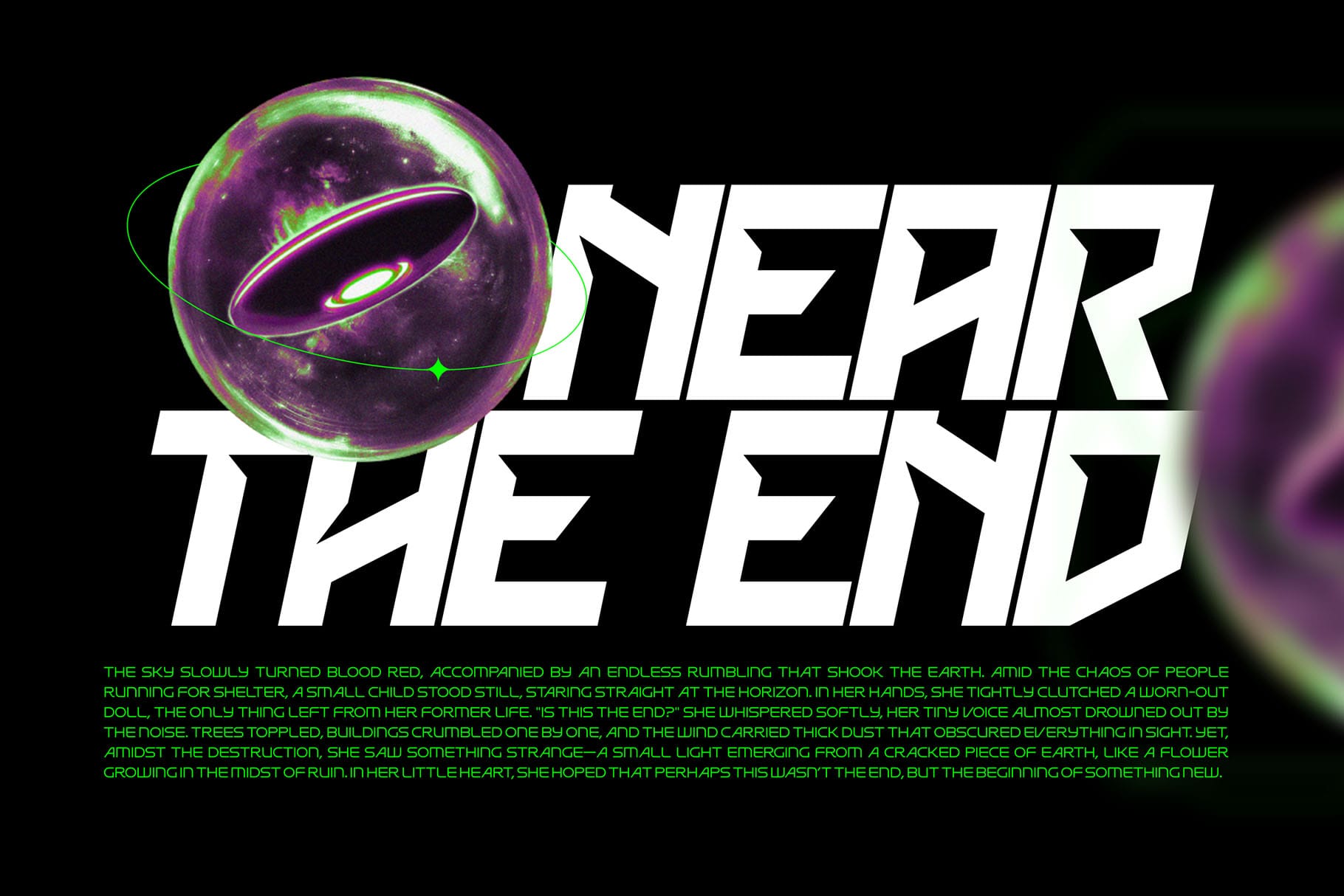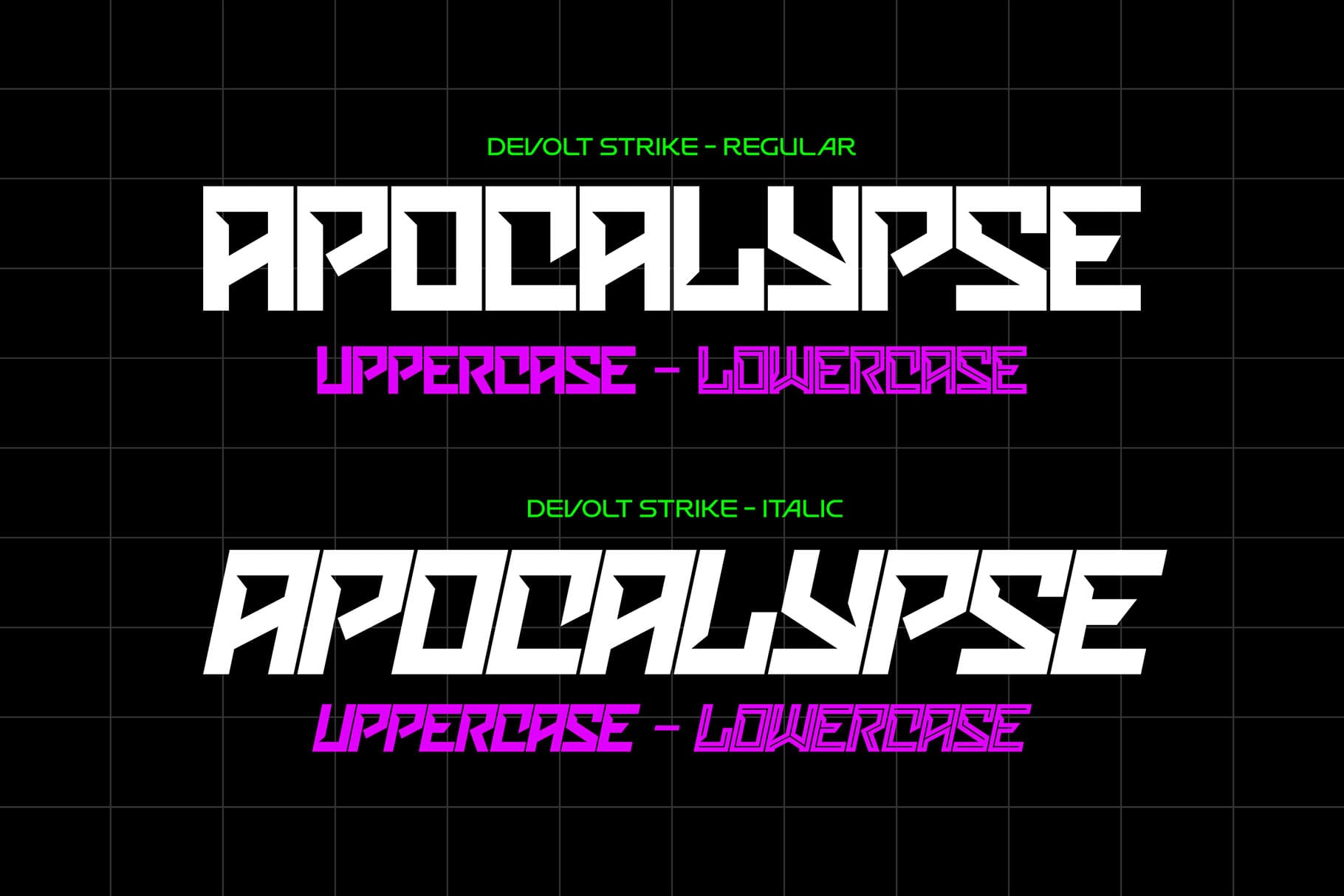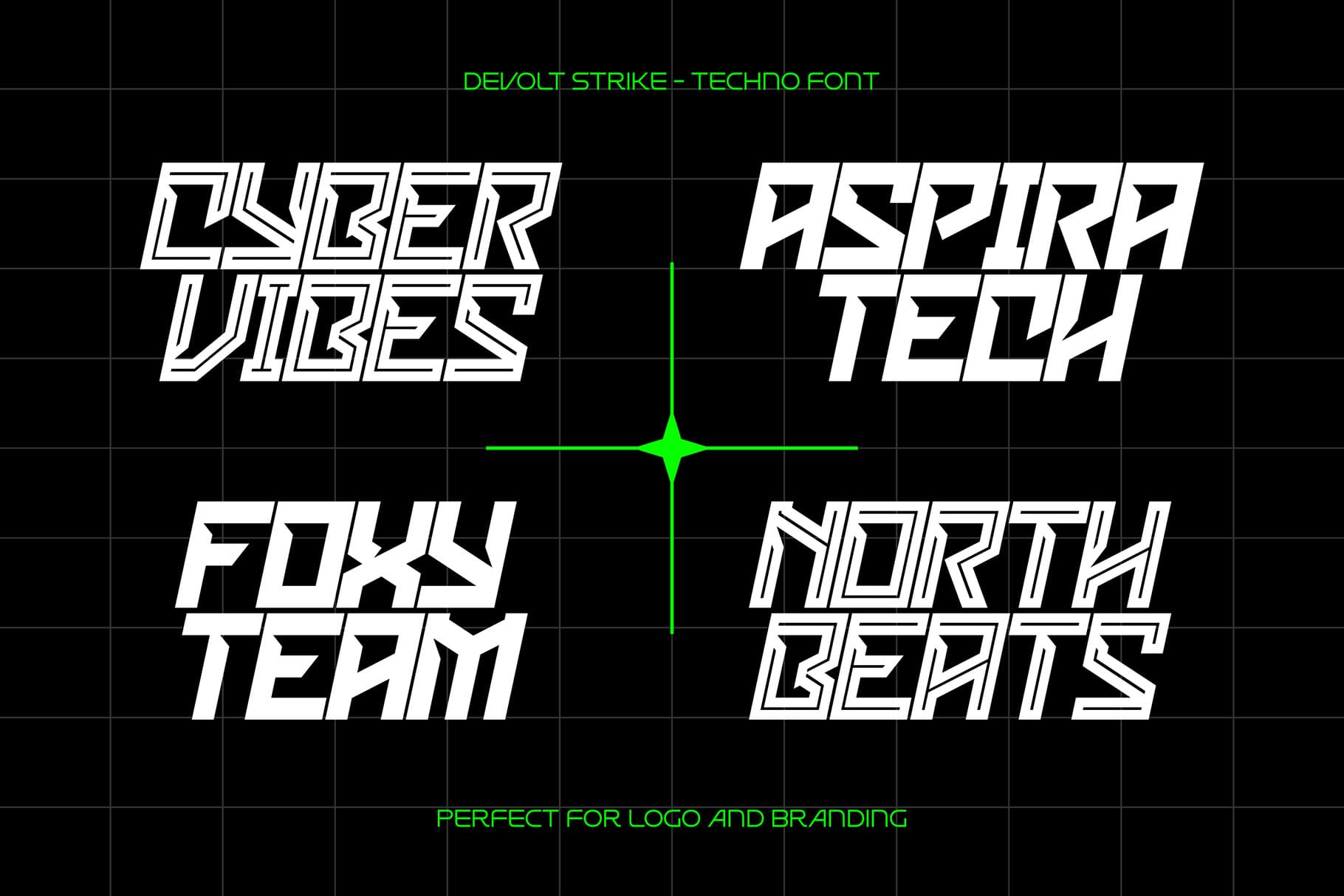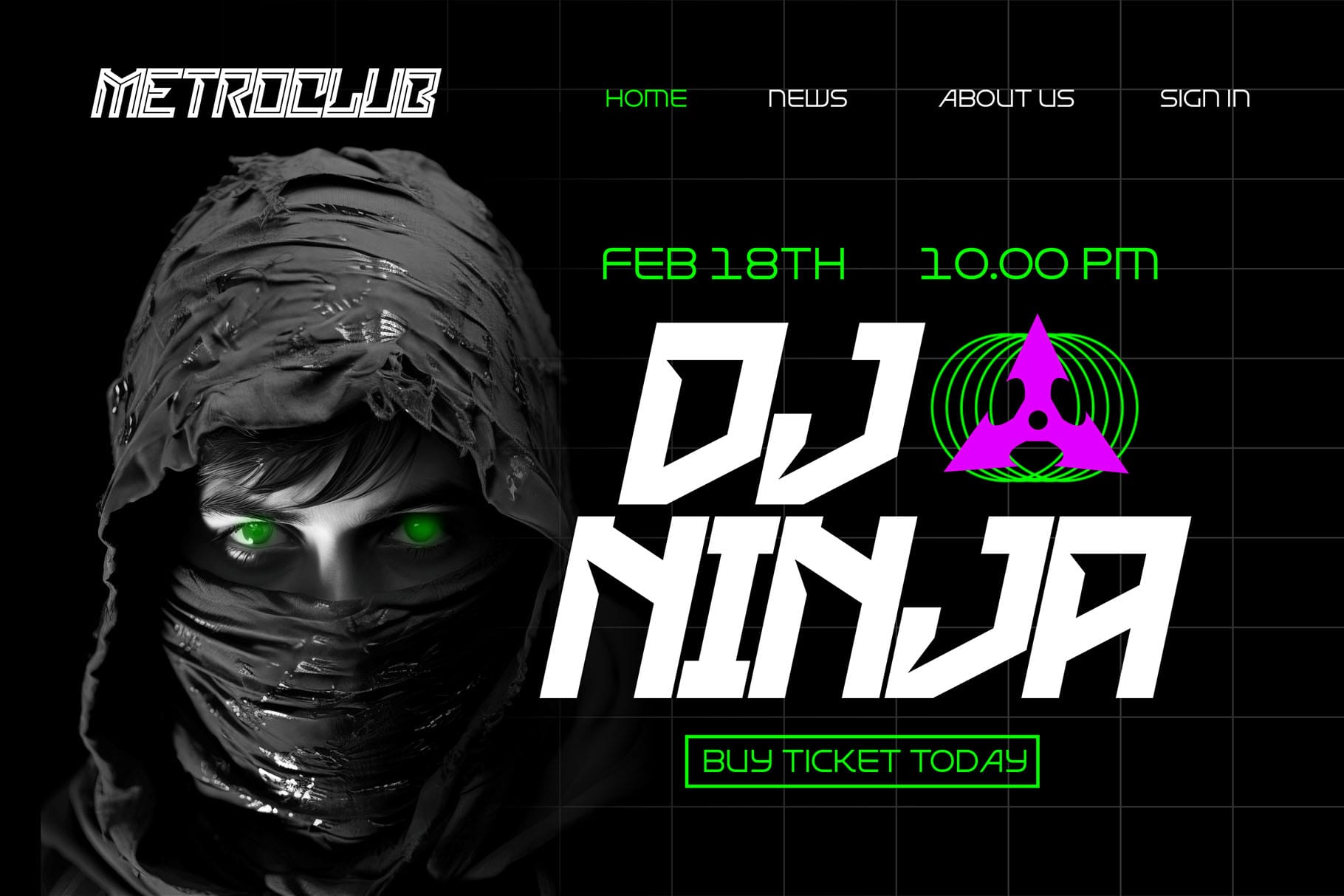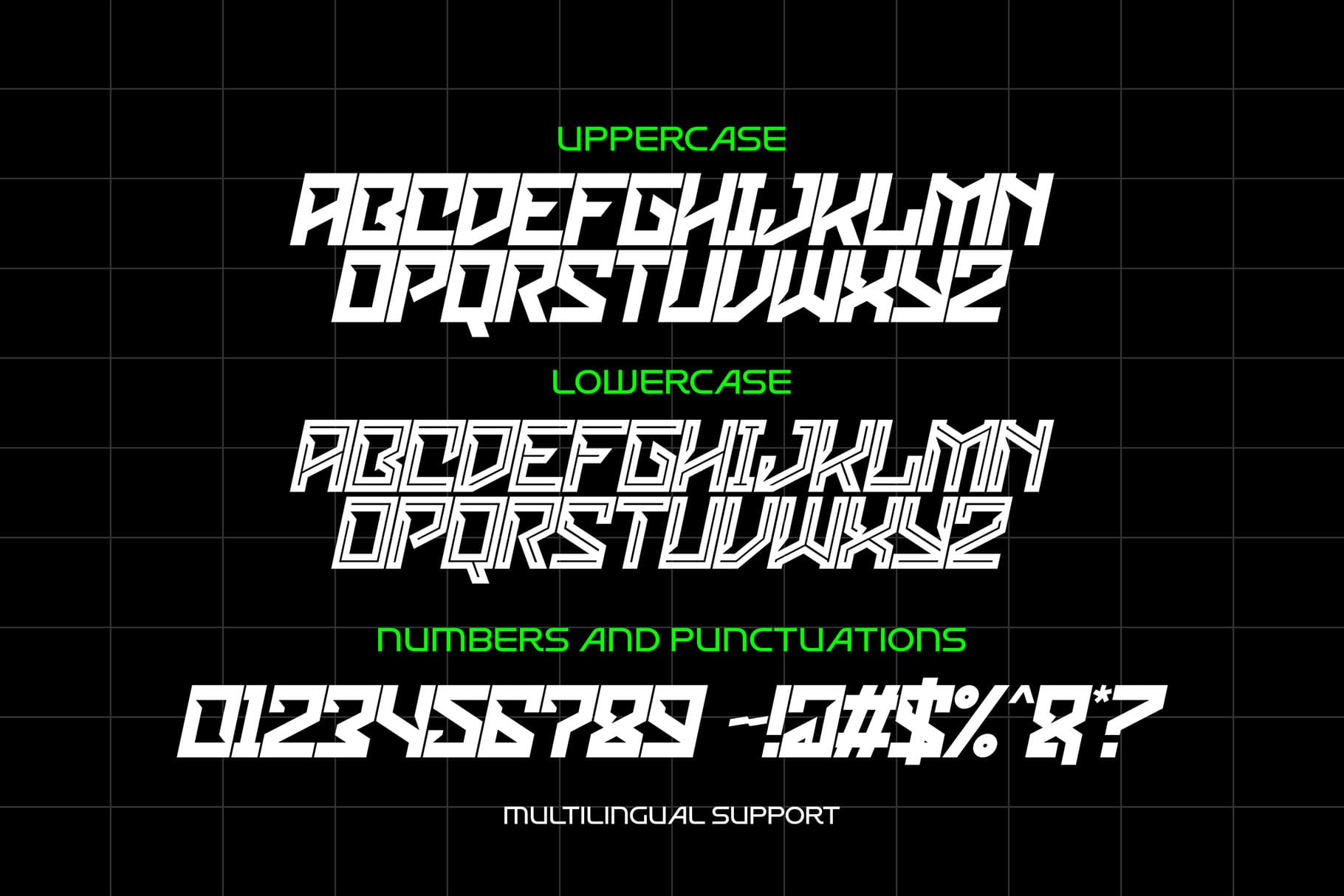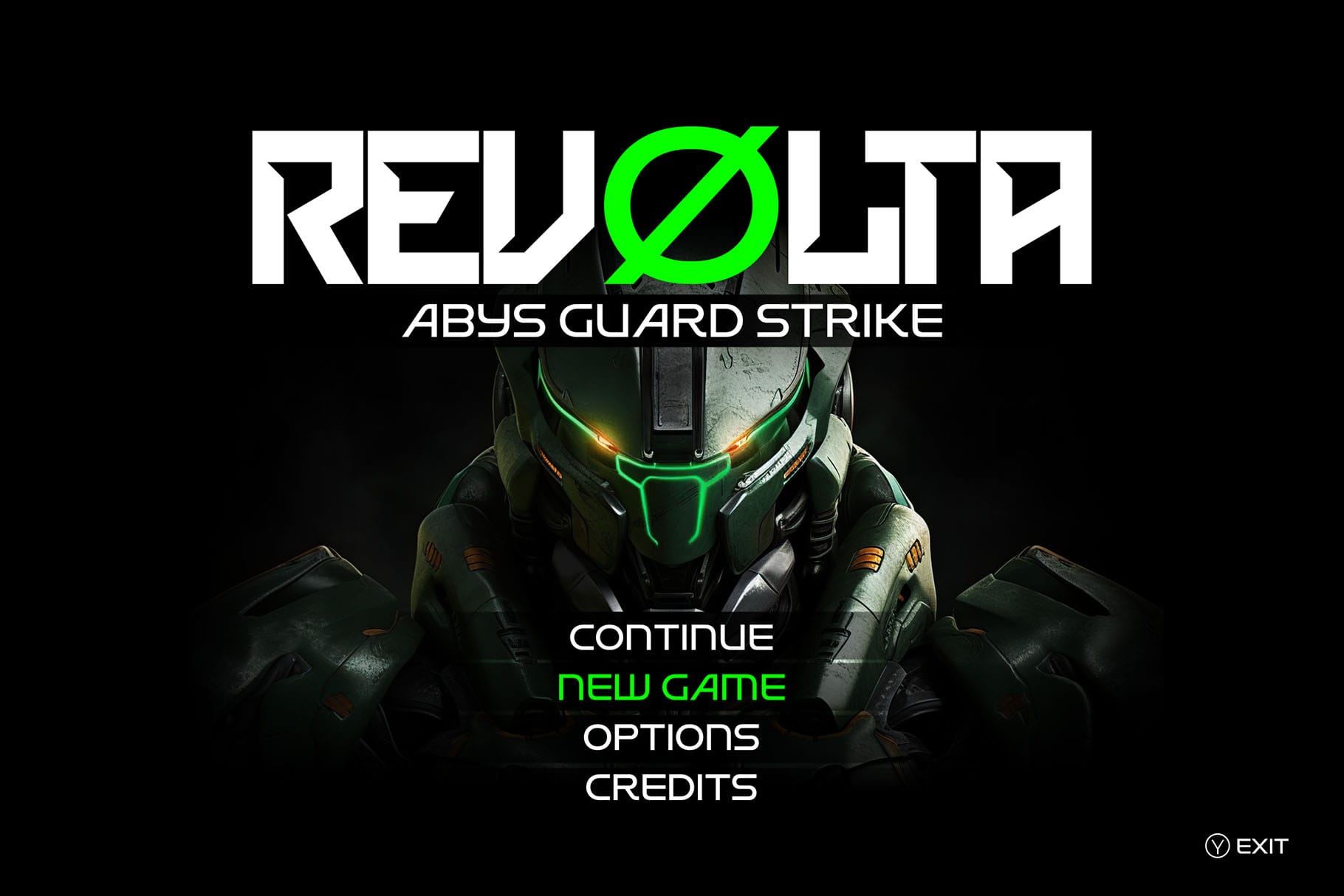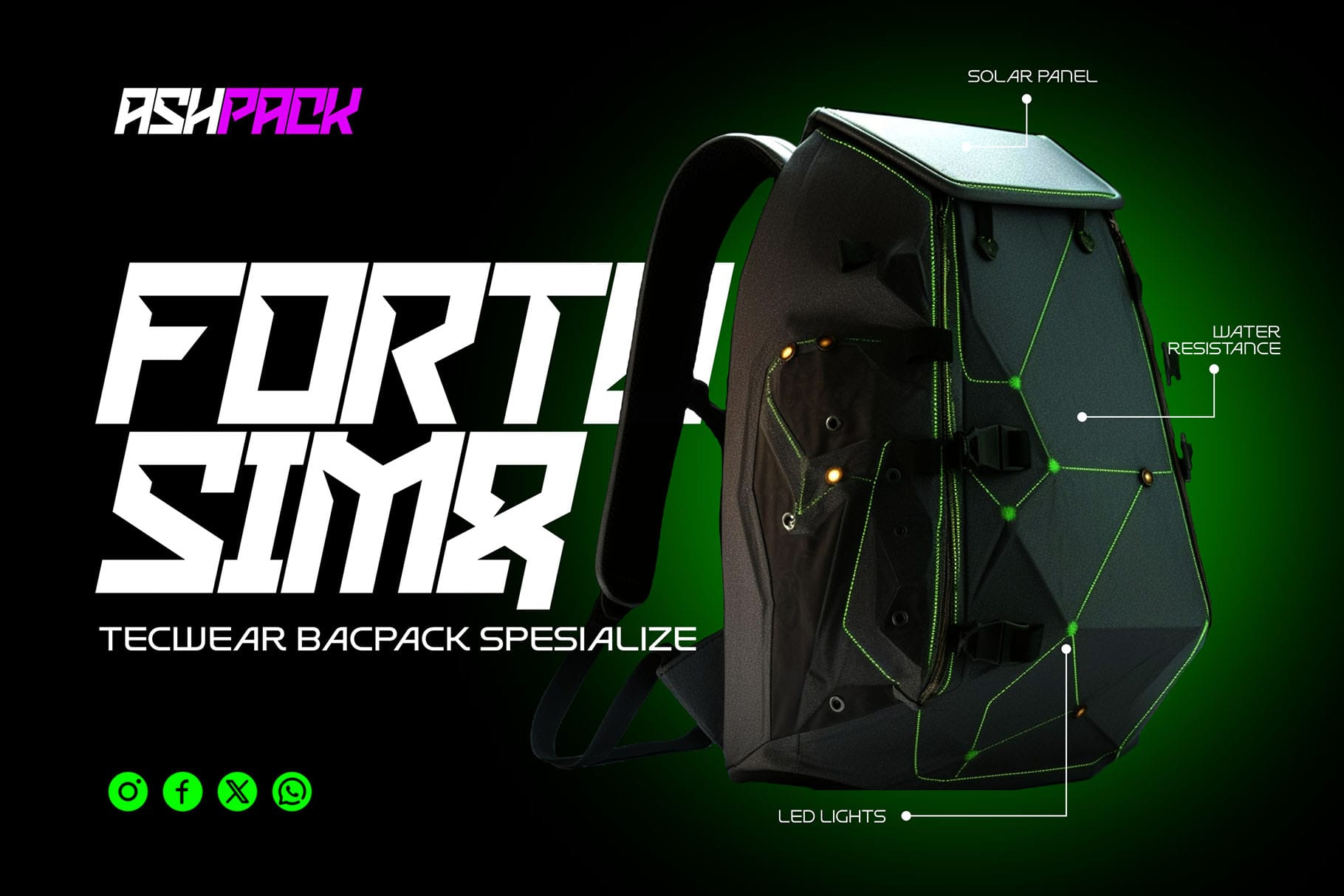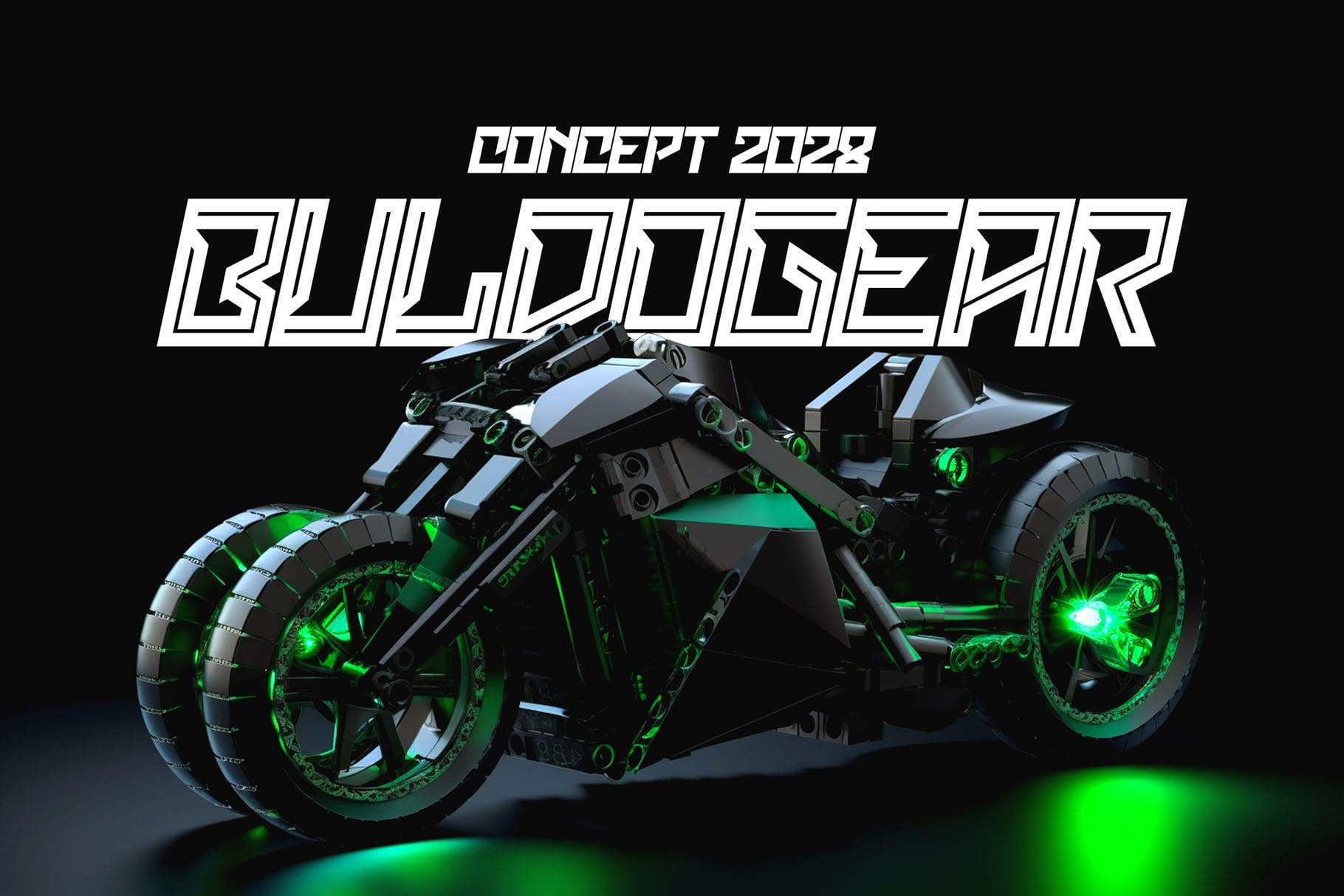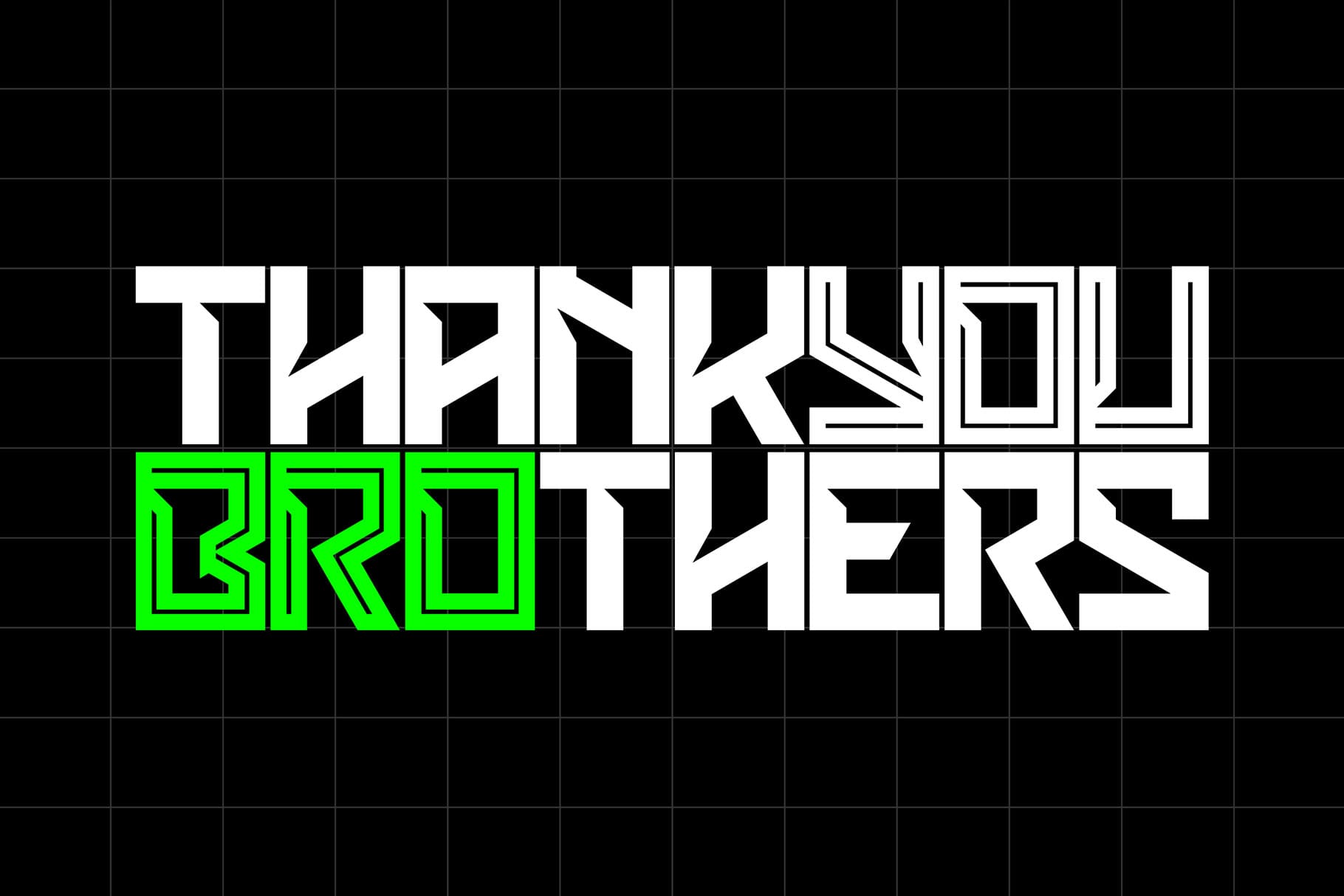
Devolt Strike Futuristic Techno Font for Bold Visual Systems
Devolt Strike Futuristic Techno Font is designed for creators who want their typography to feel sharp, modern, and built for a digital-first world. With its futuristic techno personality, this font brings a strong visual presence to designs that need energy, structure, and a forward-looking tone.
This typeface is made for projects where ordinary typography feels too soft. Devolt Strike gives your words a more powerful edge, making it a strong choice for tech brands, gaming visuals, esports graphics, sci-fi concepts, digital posters, product labels, merchandise, and bold headline layouts.
The family includes both regular and italic styles, giving designers more flexibility when building hierarchy, contrast, and motion inside a visual composition. Use the regular style for strong titles and brand marks, then bring in the italic style for speed, direction, or supporting text that needs extra movement.
Devolt Strike has a futuristic techno direction with a confident, engineered look. Its visual mood feels modern, digital, and energetic, making it especially useful for designs connected to innovation, technology, entertainment, gaming, cyber culture, and future-focused branding.
The font carries a display-focused personality. It is not made to disappear quietly in a layout. Instead, Devolt Strike is built to become a visual anchor. It helps headlines, logos, and promotional graphics feel more intentional and memorable.
For brand designers, this means you can create a stronger first impression without relying on overly complex effects. For content creators, it gives posters, thumbnails, covers, and social media graphics a more distinctive voice. For product designers and merchandise sellers, it can add a bold typographic layer to apparel, packaging, stickers, labels, and digital goods.
Best Use Cases
Devolt Strike works best in projects that need a strong display font with a futuristic edge. It is a practical choice for logo concepts, gaming identities, esports graphics, technology branding, sci-fi posters, music artwork, digital product covers, YouTube thumbnails, event flyers, apparel graphics, packaging labels, and modern promotional visuals.
Use it for titles, short phrases, brand names, product names, badges, cover artwork, and eye-catching display text. Its techno personality makes it especially useful when you want a design to feel bold, fast, digital, experimental, or future-ready.
Because Devolt Strike includes multilingual support as provided, it can also support broader design needs across different language-based projects. This makes it useful for designers working with international clients, marketplace products, and global visual campaigns.
Key Features of Devolt Strike Futuristic Techno Font
• Futuristic techno font style
• Includes Devolt Strike Regular
• Includes Devolt Strike Italic
• Standard characters included
• Punctuation included
• Multilingual support
Designers love Devolt Strike because it brings a clear futuristic character without making the workflow complicated. The regular and italic styles give you room to create contrast, movement, and emphasis while keeping the visual system consistent.
For logo designers, Devolt Strike can help shape a strong identity for tech startups, game studios, esports teams, digital products, cyber-themed brands, and entertainment projects. For poster designers, it gives headlines a sharper voice. For packaging and apparel designers, it can turn short words into strong visual statements.
Devolt Strike Futuristic Techno Font is a strong choice when your design needs to feel bold, modern, and built for the future. Whether you are creating a tech logo, gaming brand, sci-fi poster, digital product cover, apparel graphic, or high-impact headline, this font gives your typography a confident digital edge while staying practical for real creative workflows.